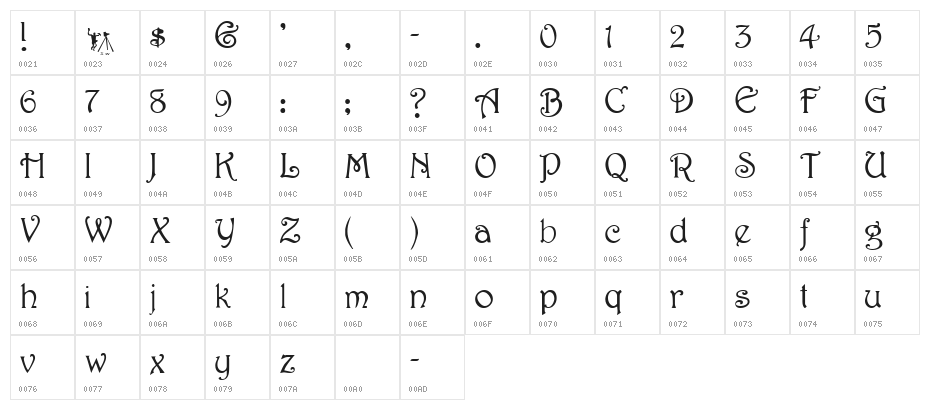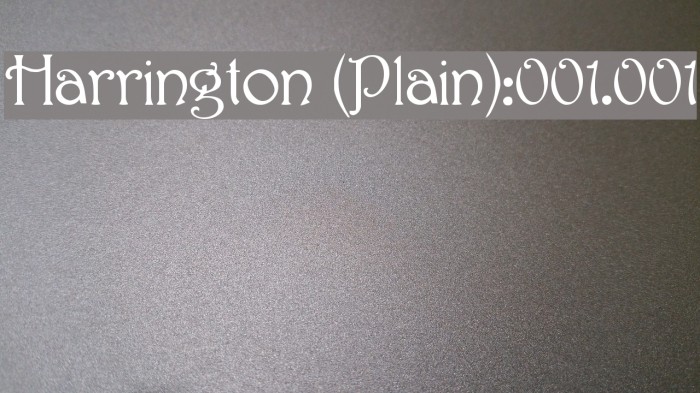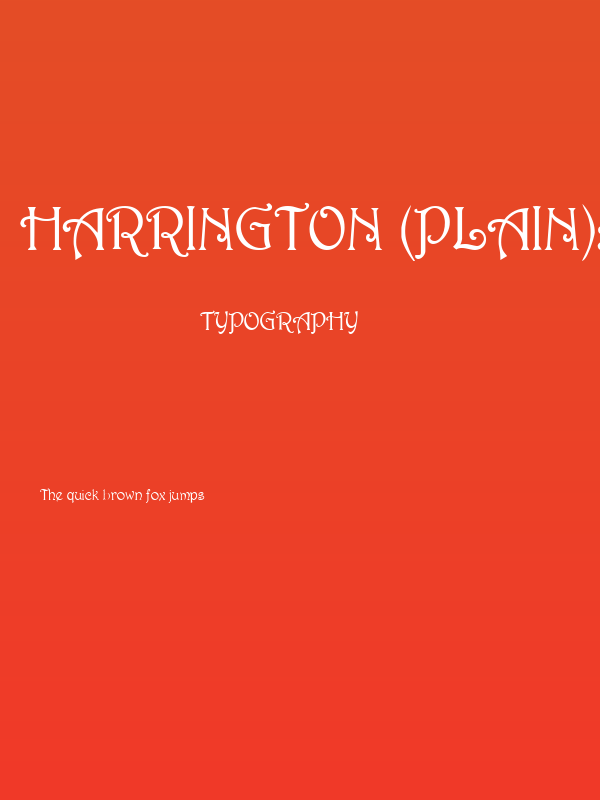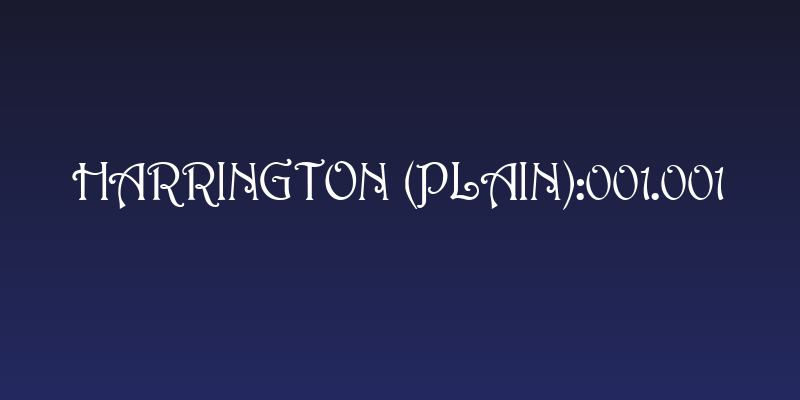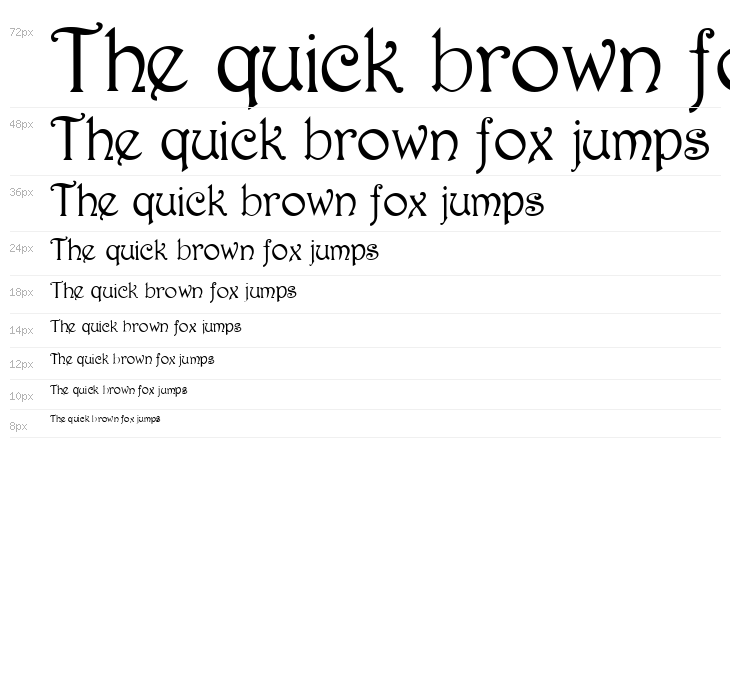
Harrington [Plain]:001.001 Font
Harrington [Plain]:001.001 Description
This font features an elegant and decorative style with a classic touch. The characters are adorned with subtle flourishes and curved serifs, giving it a sophisticated and ornamental appearance. The uppercase letters are particularly ornate, with unique embellishments that add a sense of grandeur. The lowercase letters maintain a consistent style, with smooth curves and a slightly whimsical flair. The numerals are clear and legible, while still retaining the decorative elements that characterize the font. Special characters are designed with the same attention to detail, ensuring a cohesive look across all glyphs.
| Proposed Projects | Ideal for wedding invitations, luxury branding, book covers, and decorative signage. |